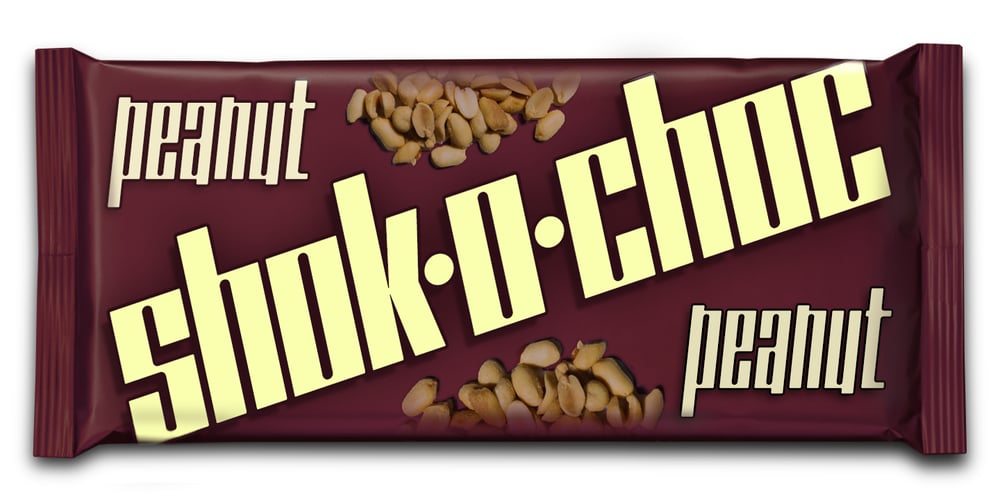
Sam Suliman
Sam Suliman font
Sam Suliman Font Family was designed by Keith Bates and published by K-Type. Sam Suliman contains 6 styles and family package options. Sam Suliman is a condensed display face supplied in three weights – Regular, Medium and Bold – plus a set of handy italics (obliques). All six fonts are included in the value family pack.The fonts are inspired by lowercase lettering on a Sarah Vaughan album cover designed by Sam Suliman in 1962, a style which contrasts sharp tight outer corners with soft rounded counters. The letters were perhaps influenced by a Solotype font called Herald Square, but without that font’s aversion to diagonals, and adding distinctive perky ascenders/descenders on the lowercase r, a, u, g and n. The Sam Suliman fonts also add the nubs to d, m, p, and q.Suliman was born in Manchester, England in 1927. After working for McCann Erikson in London, he moved to New York where he took on freelance work designing album covers, particularly celebrated are his striking minimalist designs for jazz records. He moved back to England in the early 1960s, designing many book jackets, film titles and fabrics, also working in Spain and India before settling in Oxford in the 1980s.